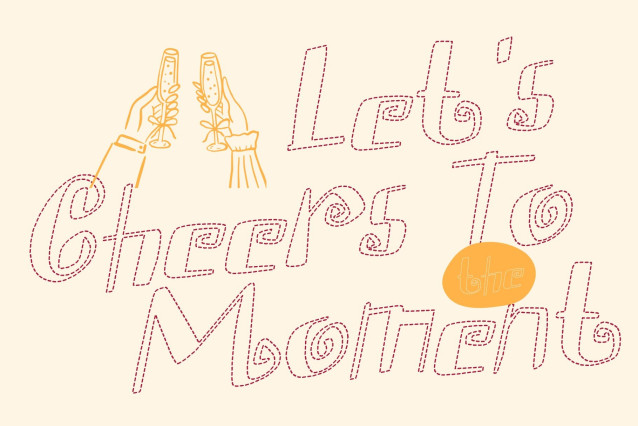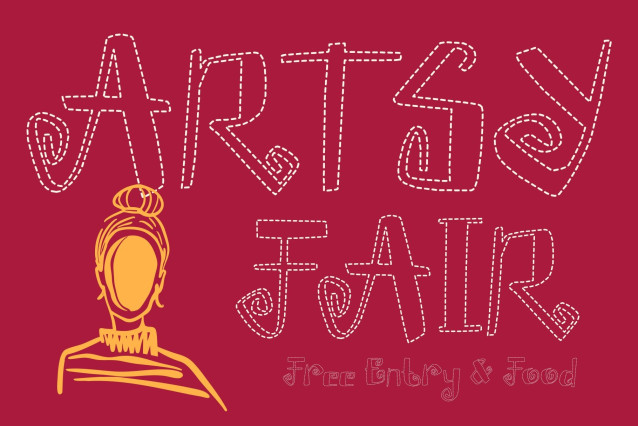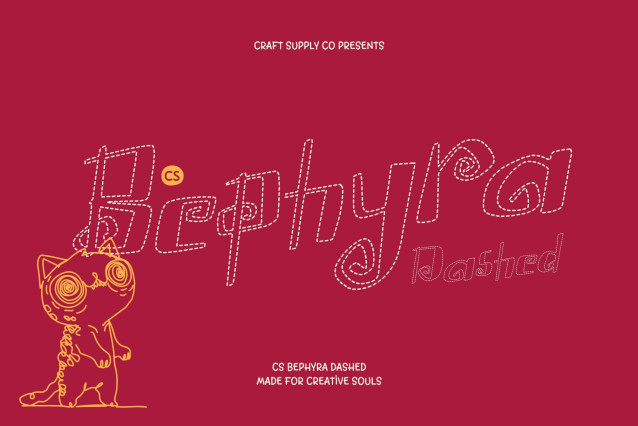
CS Bephyra Dashed Font
CS Bephyra Dashed – Whimsical Storybook Sans Serif with Magical Charm
Playful Dashed Sans Serif with Storybook Personality
This font transforms the charming storybook sans serif into a lively, broken-stroke design. Each letter is composed of short, airy dashes that maintain the original whimsy while adding a hand-crafted, magical touch. The dashed structure creates a sense of motion and imagination, giving text a creative, lighthearted energy perfect for playful narratives.
Curved, Friendly Forms with a Whimsical Touch
The gently rounded sans serif shapes retain their soft, approachable character, now enhanced with dashed strokes that convey a casual, artistic feel. The irregular breaks in each letter emphasize a handcrafted quality, making the font feel more personal, expressive, and visually engaging.
Subtle Fantasy Details in a Dashed Style
Decorative elements and storybook flourishes are preserved in the dashed version, adding hints of magic and narrative charm. The broken lines give every word a sense of movement, as if each letter is alive with a playful, fairytale energy.